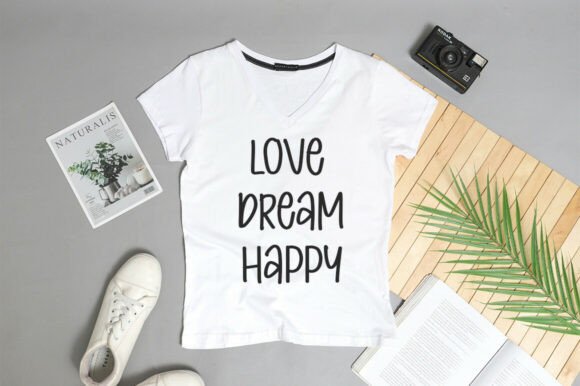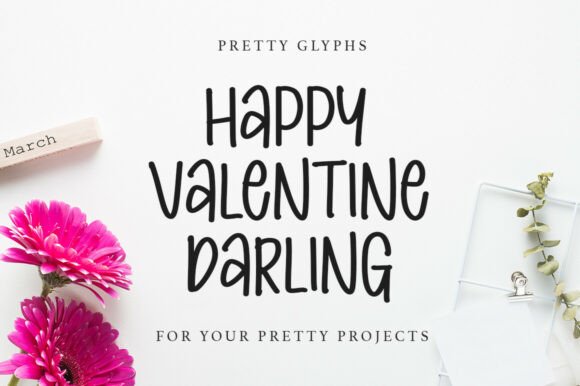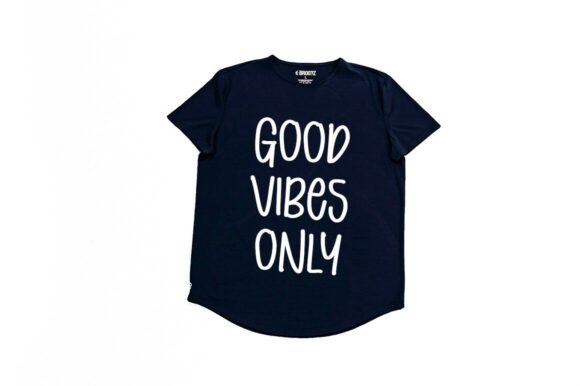
Introduction to Smudgie Font
Have you ever spent hours pouring your heart and soul into a creative project, only to have it feel like it’s missing that special something? For designers, it’s a constant quest to find the perfect combination of style and substance that connects with our audience. Sometimes, it’s all about finding that one design resource that makes all the difference. Enter the Smudgie Font, a game-changing “natural-feel” handwritten font that’s about to become your new best friend.
With its effortlessly charming, tall, and slender proportions, the Smudgie Font perfectly captures the look and feel of authentic daily journaling. Whether you’re a graphic designer, social media influencer, or simply a lover of all things creative, this high-quality font is the perfect addition to your design arsenal. And the best part? It’s free to download, making it an accessible design resource for anyone looking to elevate their creative project.
Key Features of Smudgie Font
- High-quality design for creative projects, suitable for various applications such as logos, graphics, and digital art.
- Unique, hand-drawn style with a transparent background, allowing for easy layering and customization in design projects.
- Designed to be a versatile design resource, ideal for use in various creative projects, from branding and advertising to editorial and publishing.
Honest Review: Smudgie Font
I recently came across the Smudgie Font and I must say it’s a unique addition to any creative project. With its quirky charm and playful feel, it’s perfect for designers looking to add some personality to their designs.
- High-quality design: The Smudgie Font is well-crafted and features smooth lines and curves that make it a joy to work with.
What doesn’t work so well:
- ⚠️ Limited character set: The Smudgie Font is currently only available in a limited character set, which may be a limitation for designers who need to use it for large-scale projects.
- ⚠️ May not be suitable for formal projects: While the Smudgie Font is perfect for creative projects, it may not be the best choice for formal or professional projects where a more traditional font is preferred.
Overall, I’m impressed with the Smudgie Font and I think it’s a great design resource for designers looking to add some creativity to their work. Just be aware of its limitations and use it accordingly.
Smudgie Font is perfect for creative projects that require a unique touch, such as:
- Web design projects
- Print design projects